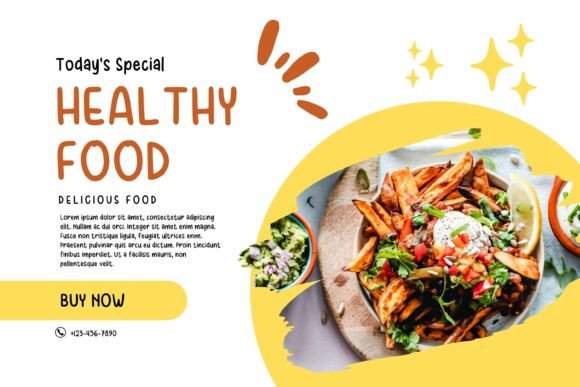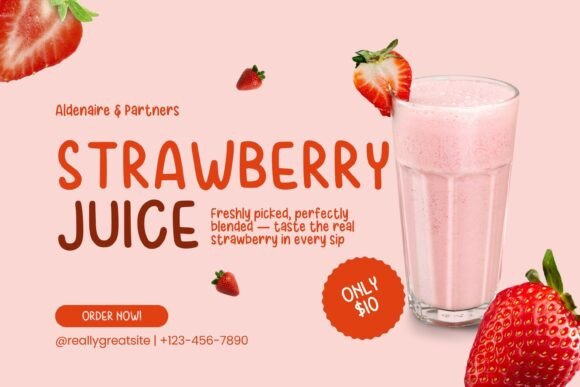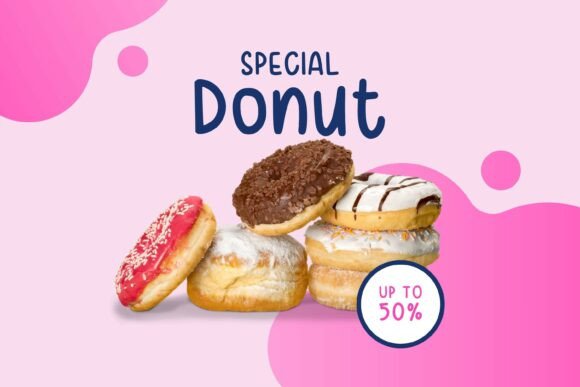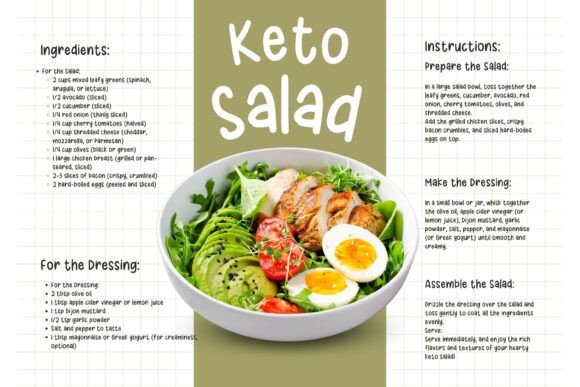
Introducing Bad Recipe Font: Elevate Your Designs with a Dash of Whimsy
Are you tired of using the same old fonts for your recipe designs, product promotions, and greeting cards? Look no further than Bad Recipe font, a charming and creative typeface that’s sure to add a pinch of personality to your content. In this article, we’ll dive into the world of Bad Recipe font and explore how it can help you create engaging, memorable, and visually stunning designs.
The Magic of Bad Recipe Font
Bad Recipe font is more than just a cute and quirky typeface – it’s a design game-changer. With its unique blend of playfulness and sophistication, this font is perfect for designers and crafters looking to add a touch of whimsy to their work. Whether you’re creating labels for aromatic ingredients, designing enticing adverts, or crafting greeting cards, Bad Recipe font is sure to captivate your audience and enhance your message.
Unleash Your Creativity with Bad Recipe Font
One of the best things about Bad Recipe font is its versatility. This font is designed to be used in a variety of creative projects, from recipe designs and product promotions to greeting cards and more. With Bad Recipe font, you can:
- Create eye-catching recipe designs that showcase your culinary creations
- Develop product promotions that stand out from the crowd
- Design greeting cards that are both personal and memorable
- Add a touch of personality to your ingredient labels and packaging
The Benefits of Using Bad Recipe Font
So why choose Bad Recipe font for your design projects? Here are just a few benefits of using this amazing typeface:
- Unique and Memorable Designs: Bad Recipe font helps you create designs that are both unique and memorable. With its playful and charming style, this font is sure to leave a lasting impression on your audience.
- Ease of Use: Bad Recipe font is easy to use and pairs well with a variety of other fonts and design elements. Whether you’re a seasoned designer or just starting out, this font is easy to incorporate into your workflow.
- Customization Options: With Bad Recipe font, you have the flexibility to customize your designs to fit your brand and style. Experiment with different colors, textures, and design elements to create a look that’s all your own.
Tips for Using Bad Recipe Font
Ready to get started with Bad Recipe font? Here are a few tips to help you make the most of this amazing typeface:
- Experiment with Different Sizes and Colors: Don’t be afraid to experiment with different sizes and colors when using Bad Recipe font. This font looks great in a variety of sizes and colors, so don’t be afraid to get creative!
- Pair with Other Fonts: Bad Recipe font pairs well with a variety of other fonts and design elements. Try pairing it with a bold font for a striking contrast, or with a script font for a more elegant look.
- Use in Combination with Images: Bad Recipe font looks great when used in combination with images and other design elements. Try using it to add text to your images, or to create eye-catching graphics and illustrations.
In conclusion, Bad Recipe font is a game-changer for designers and crafters looking to add a touch of whimsy and personality to their work. With its unique blend of playfulness and sophistication, this font is perfect for creating engaging, memorable, and visually stunning designs. Whether you’re creating recipe designs, product promotions, or greeting cards, Bad Recipe font is sure to captivate your audience and enhance your message. So why wait? Give Bad Recipe font a try today and bring your artistry to life!